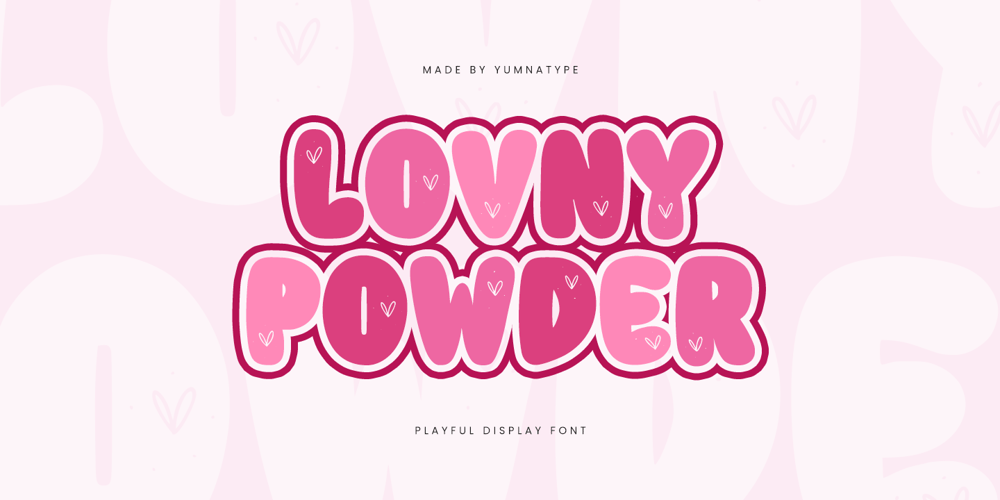
Lovny Powder Font Family was designed by Donis Miftahudin and published by Yumna Type. Lovny Powder contains 1 styles and family package options. Lovny Powder is a charming display font that captivates with its approachable looks. Each letter is meticulously crafted to convey a sense of joy and whimsy, adding a touch of personality to your text. At the same time, with its playful style and rounded shapes, Lovny Powder invites viewers to embrace their creativity and imagination.Despite its thick weight, this font maintains a sense of lightness and fluidity, thanks to its rounded shapes and low contrast. The low contrast in Lovny Powder adds to its overall charm and approachability. In addition, enjoy the features here.Features: Multilingual Supports PUA Encoded Numerals and Punctuations Lovny Powder fits in headlines, logos, posters, flyers, branding materials, print media, editorial layouts, and many more designs. Find out more ways to use this font by taking a look at the font preview.Thanks for purchasing our fonts. Hopefully, you have a great time using our font. Feel free to contact us anytime for further information or when you have trouble with the font. Thanks a lot and happy designing.